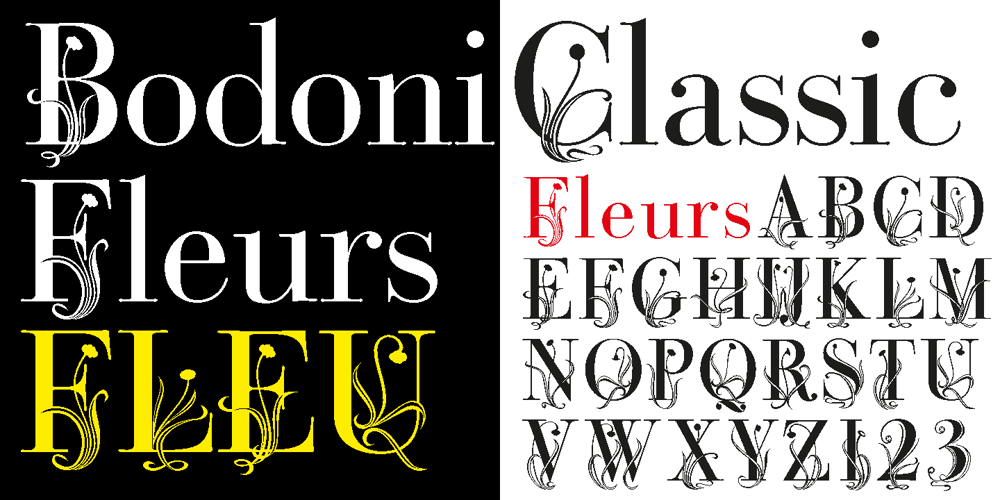
Bodoni Classic Fleurs Font Family was designed by Gert Wiescher and published by Wiescher Design. Bodoni Classic Fleurs contains 1 styles and family package options. Bodoni Classic Fleurs is beautifully decorated with lots of alternate glyphs for many languages.